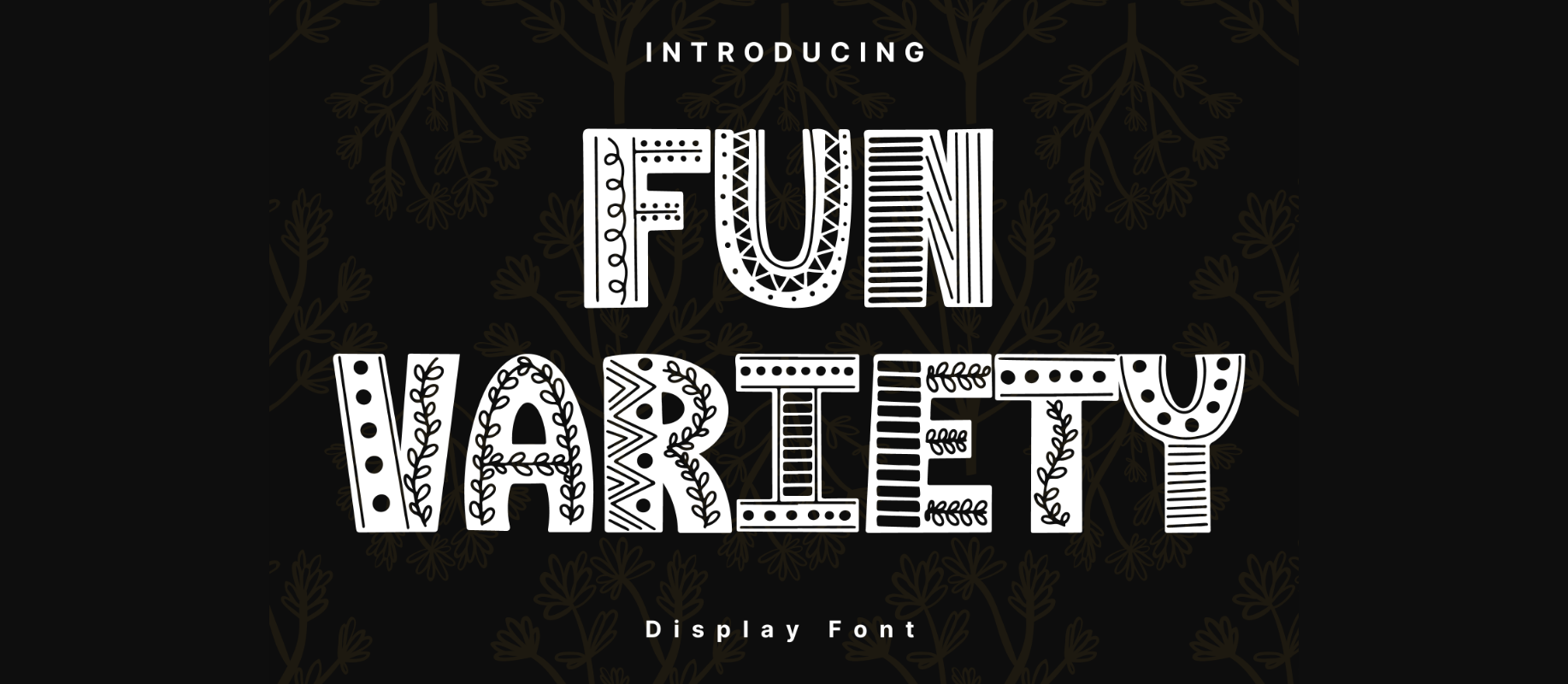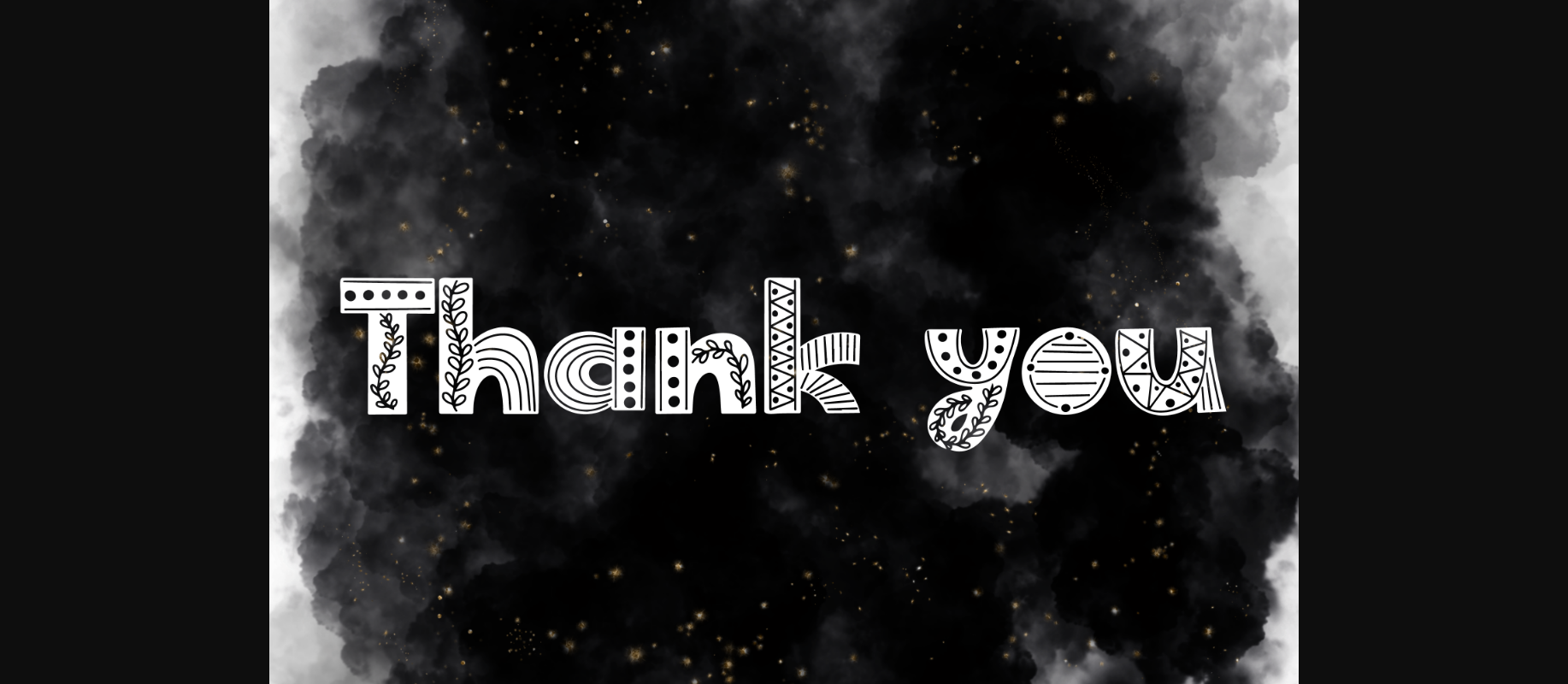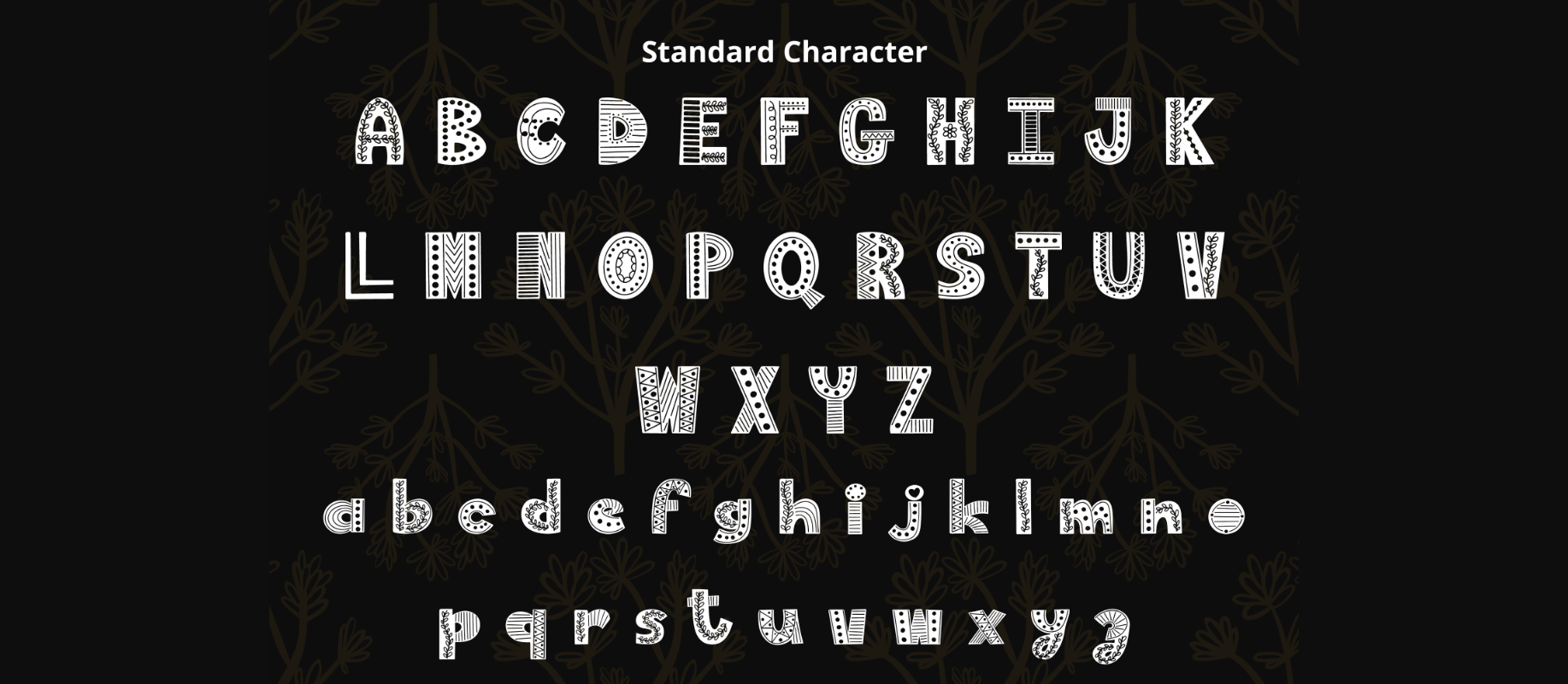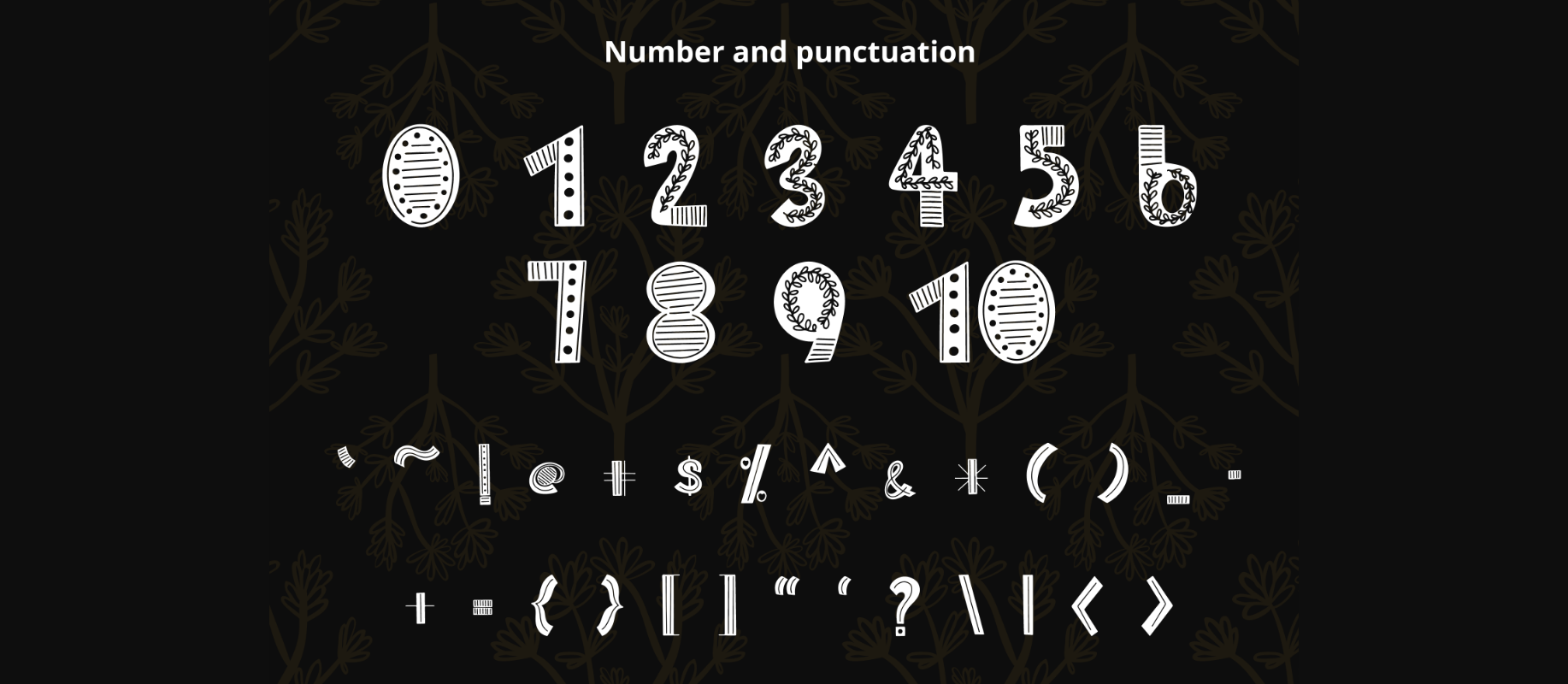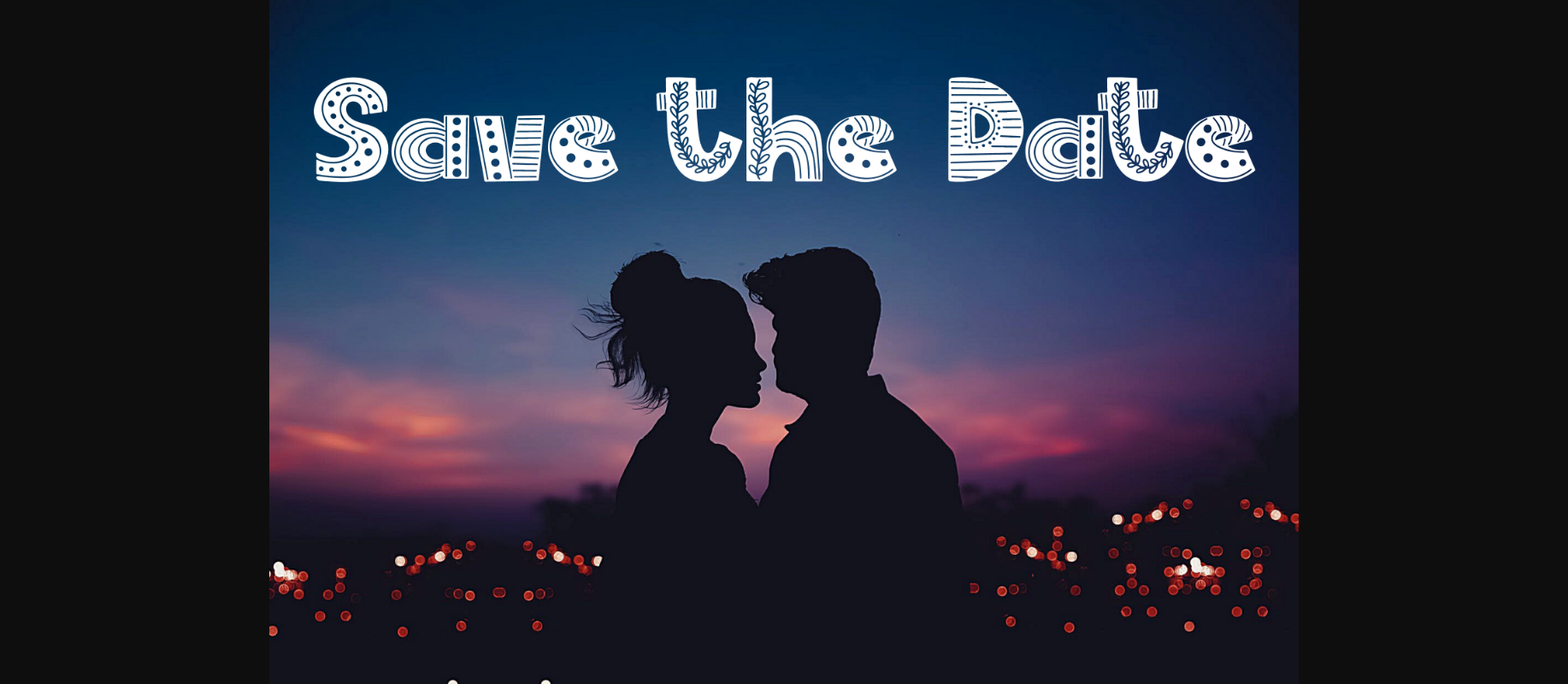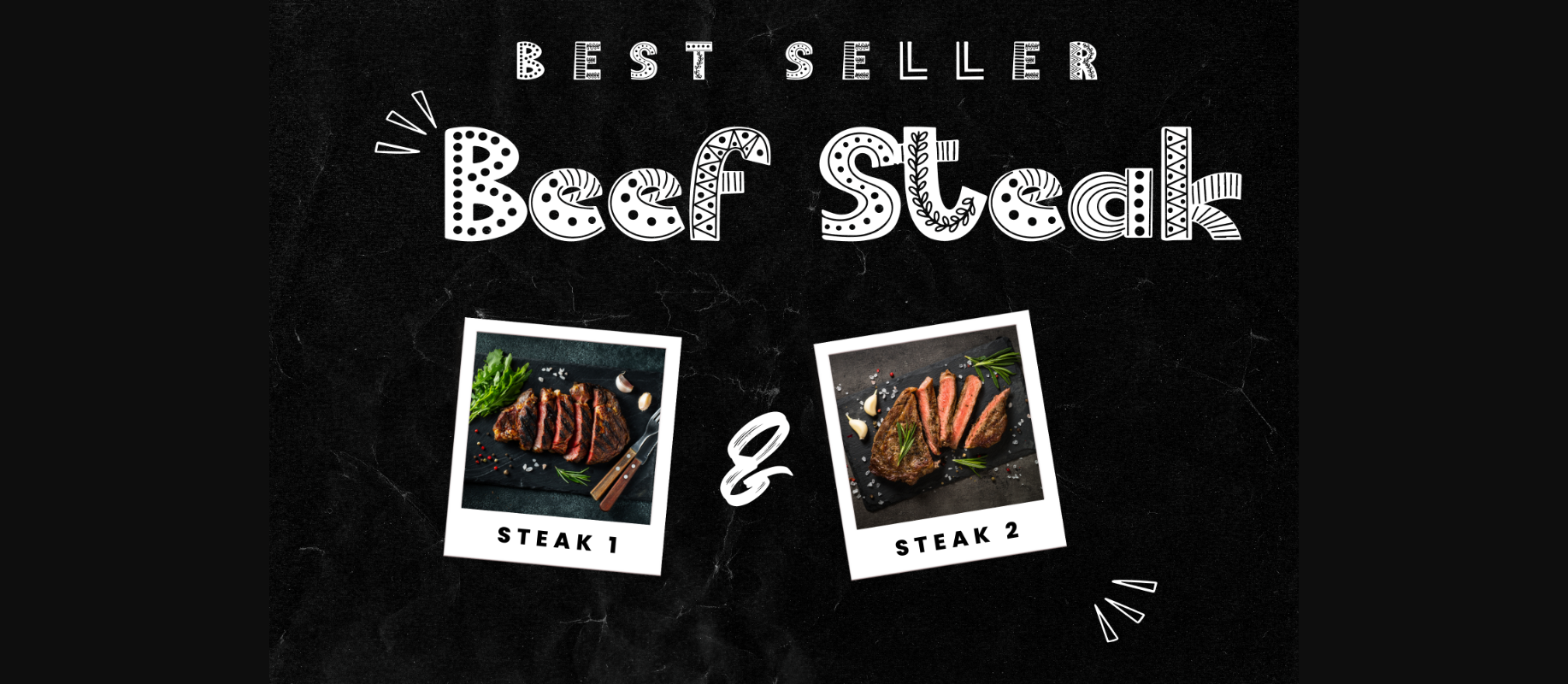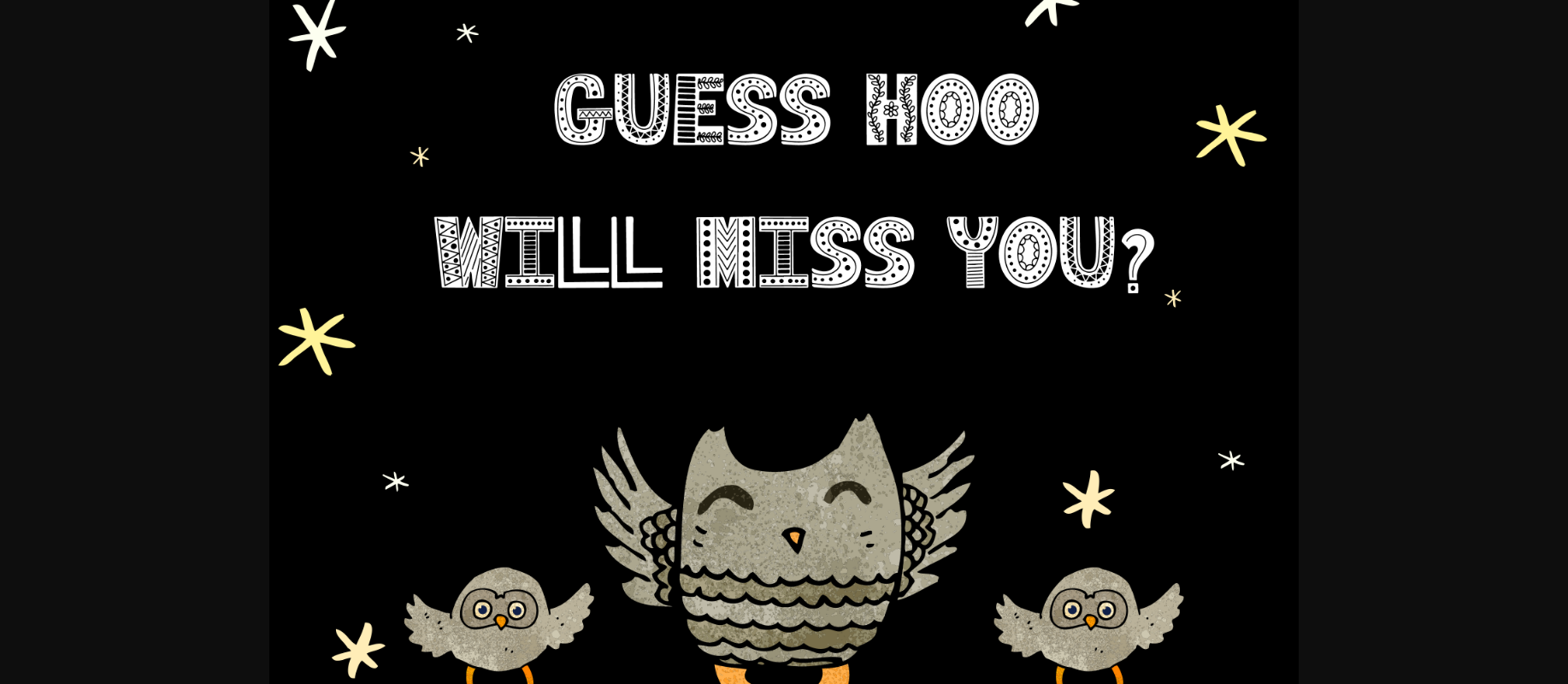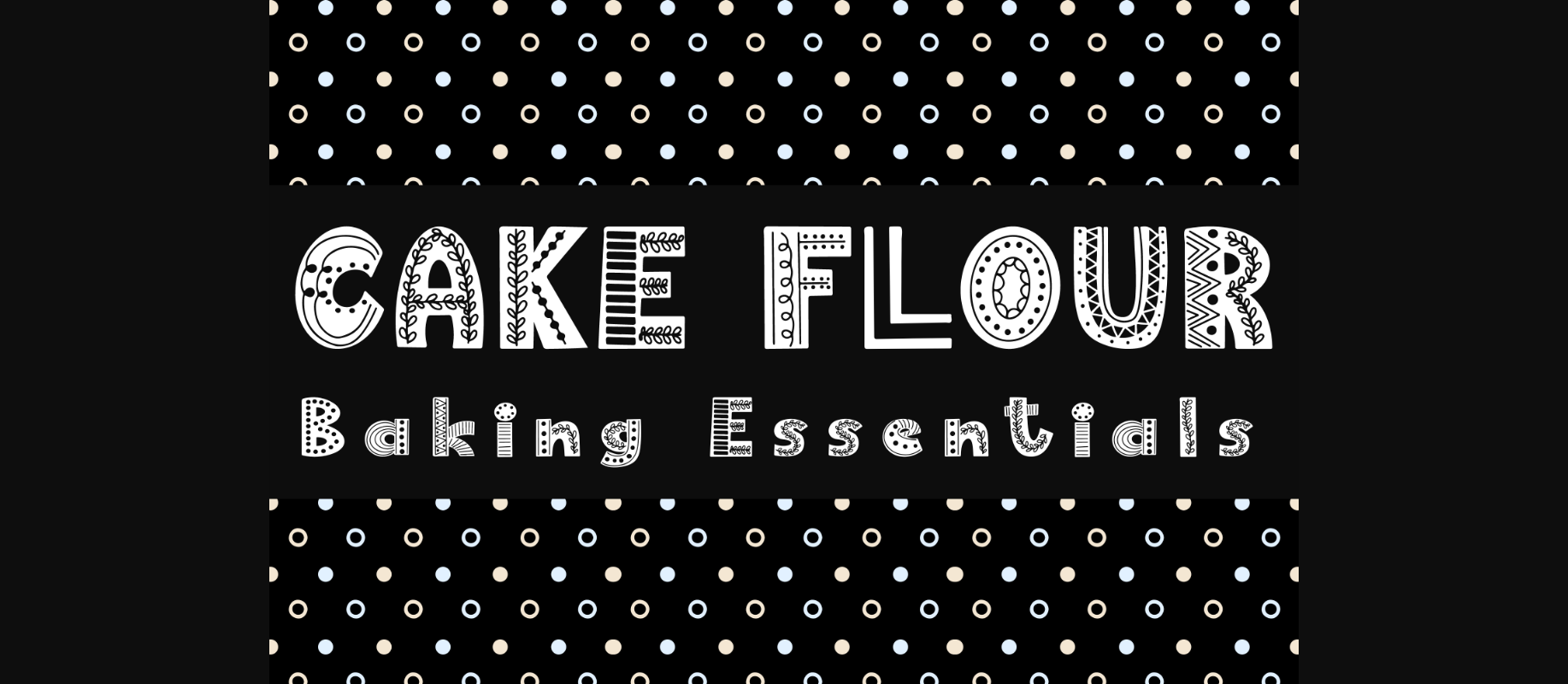
Fun Variety Font
About Fun Variety Font
Fun Variety is a magical, rustic-style decorative font. It can easily be matched to an incredibly large set of projects, so add it to your creative ideas and notice how it makes them stand out!